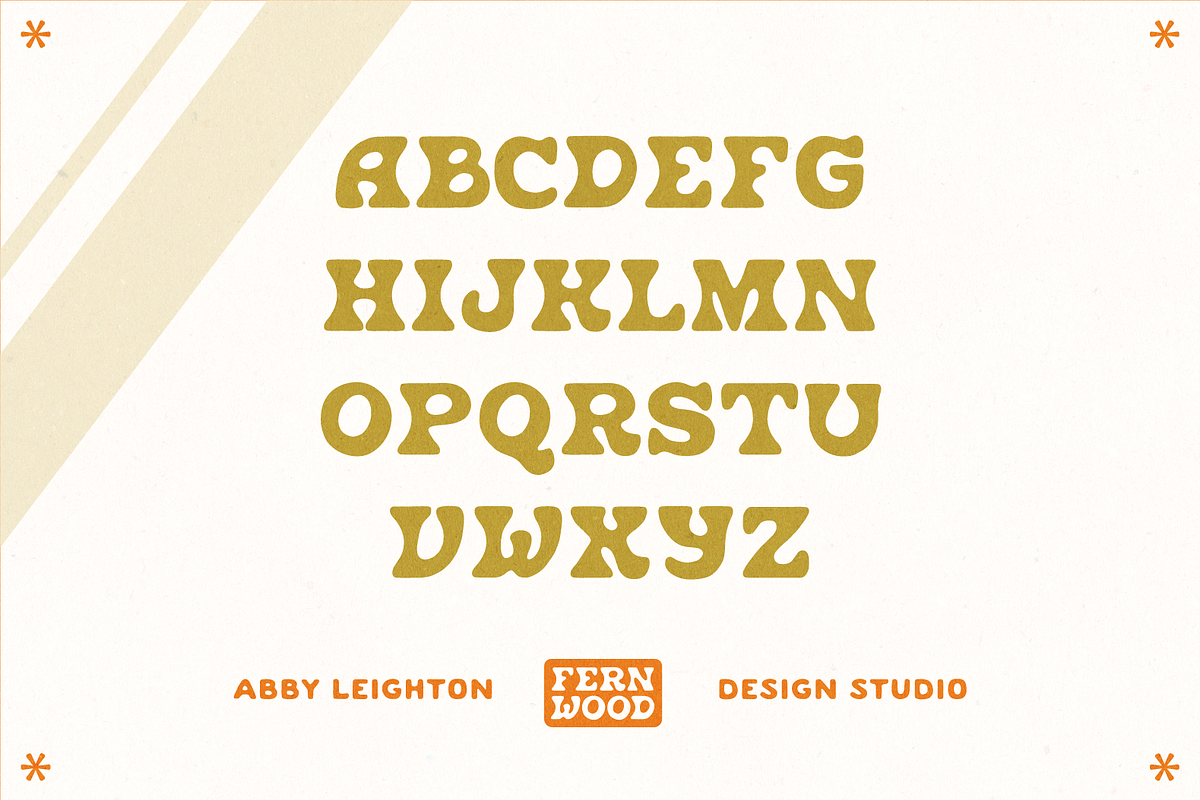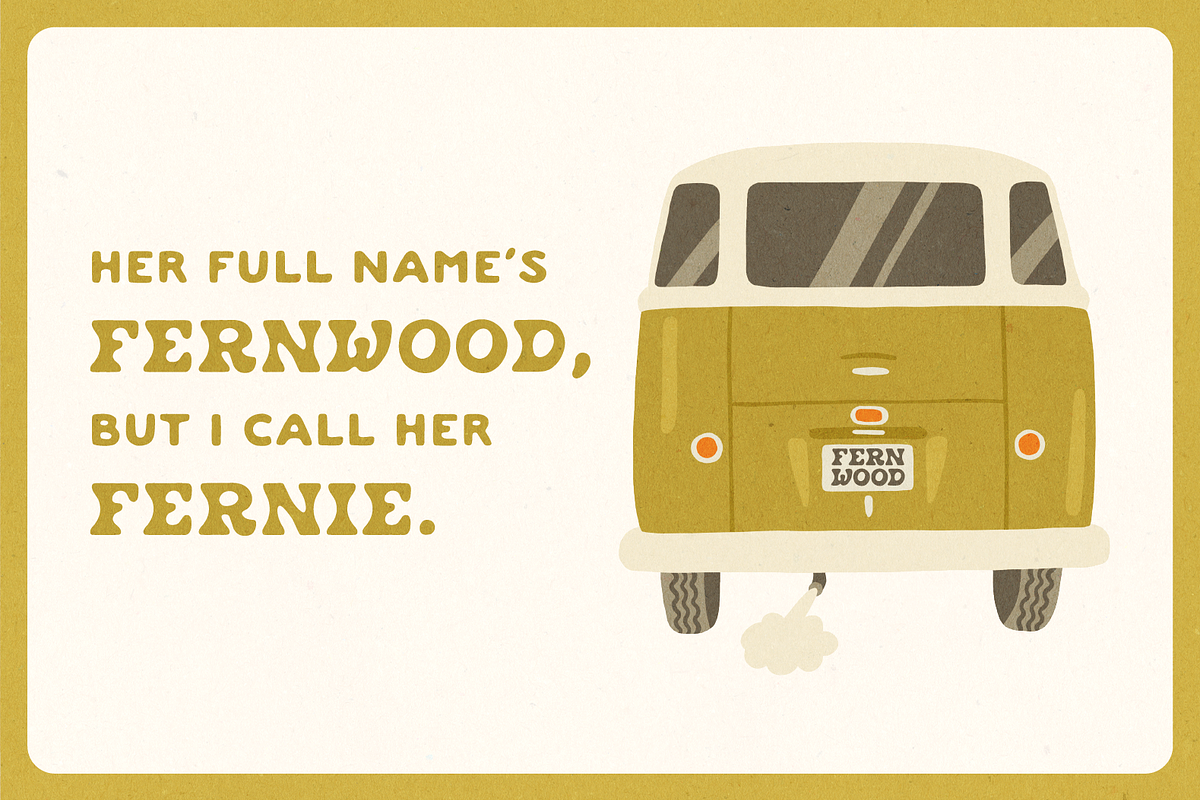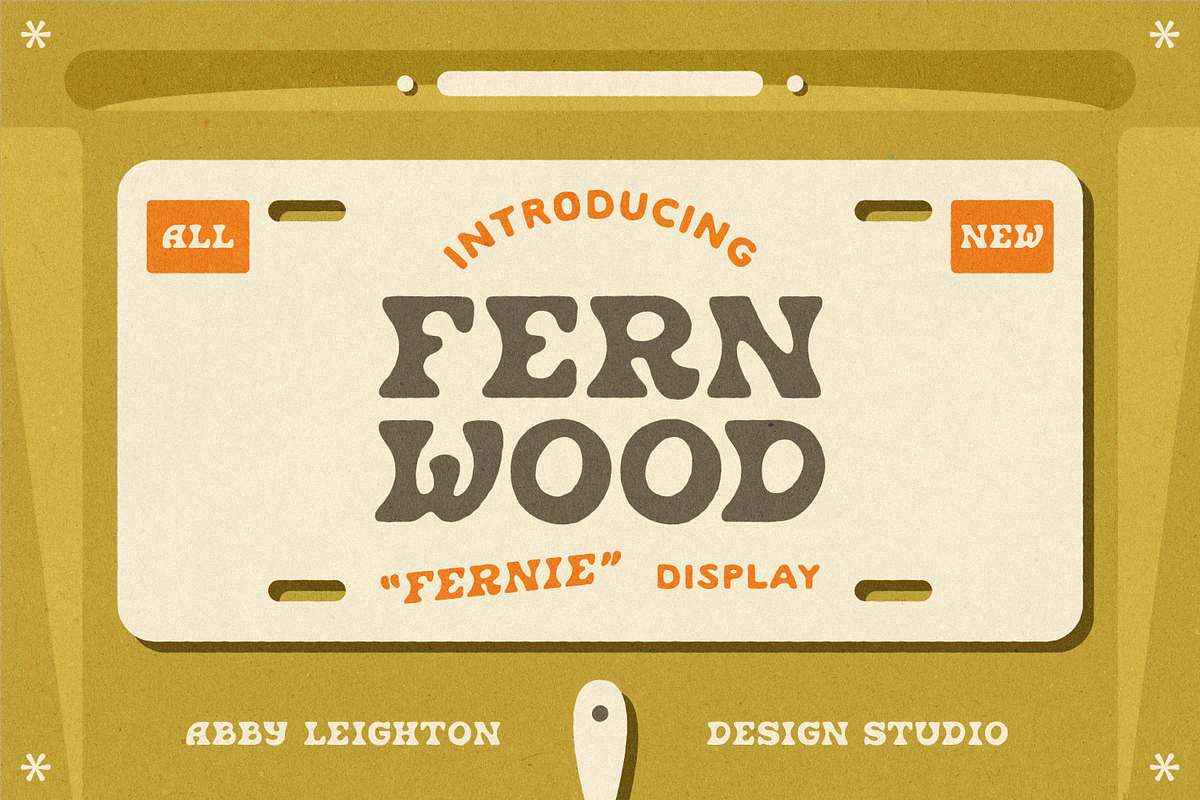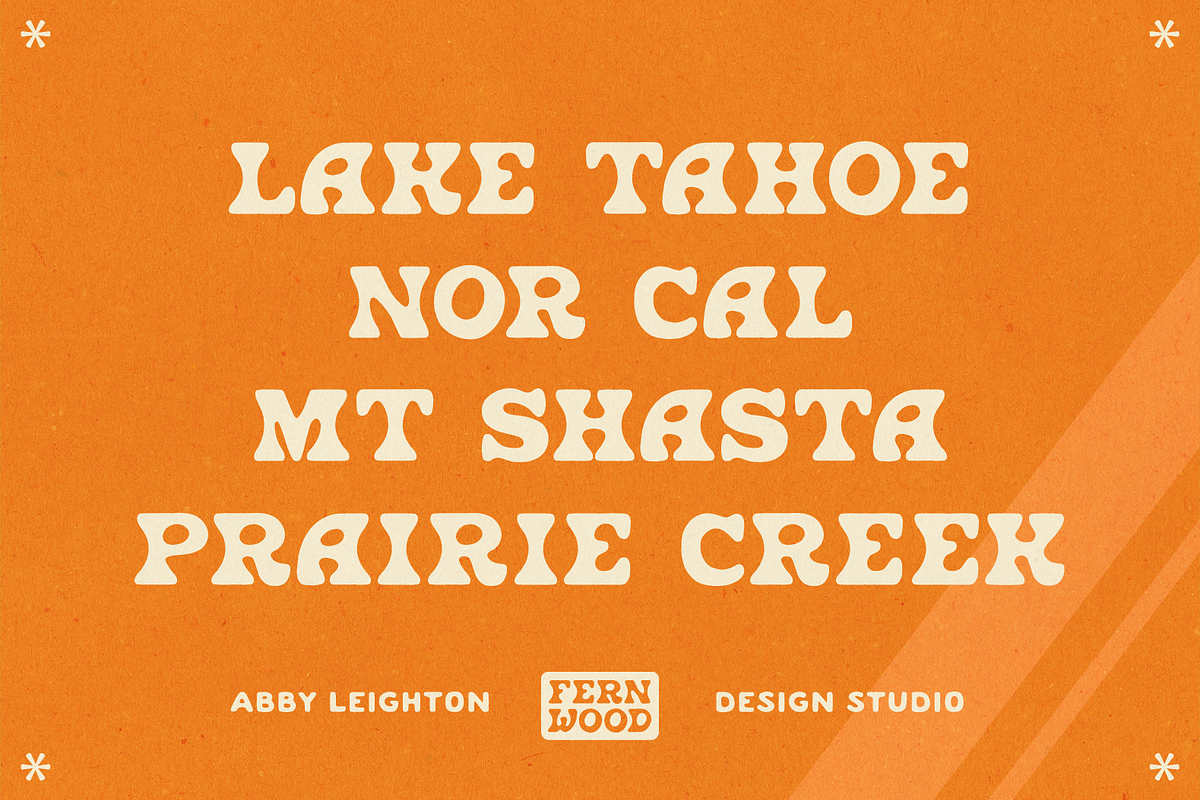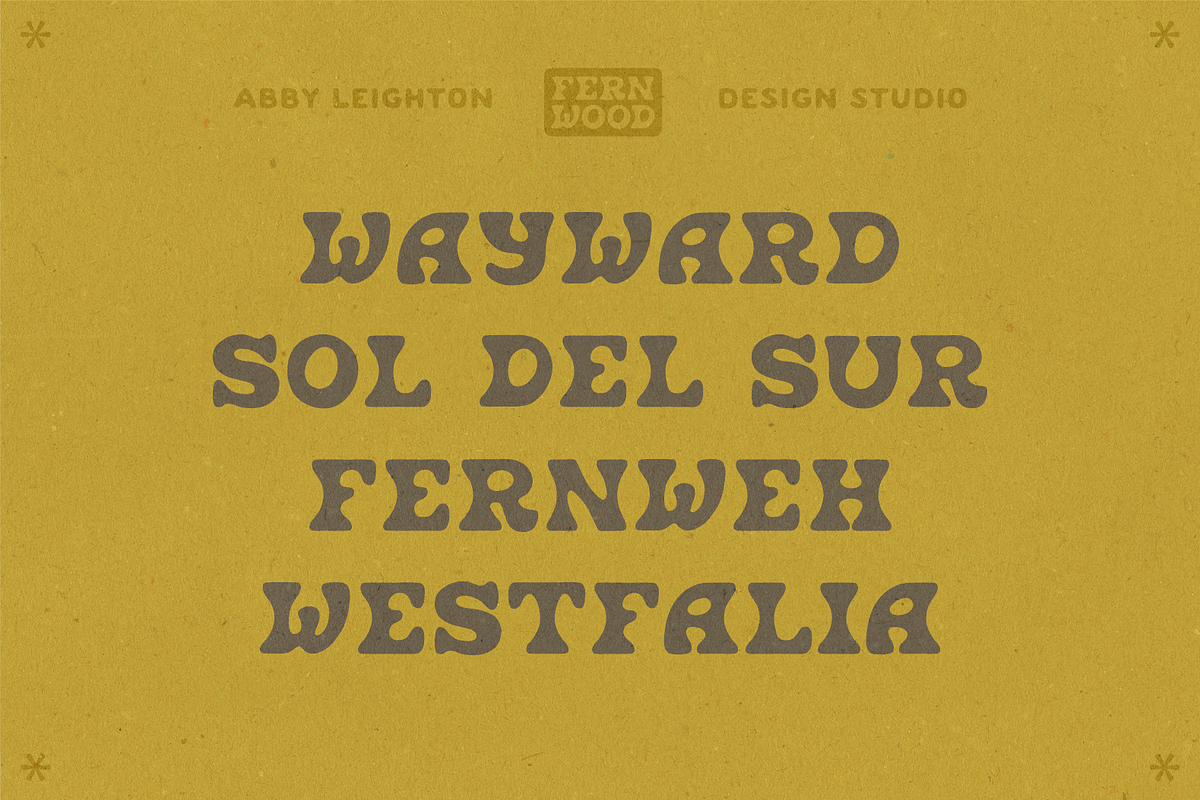
FERNWOOD "FERNIE" DISPLAY
Fernwood "Fernie" Display is an art nouveau and 70s-inspired typeface. Retro, hand-drawn, and playful, it's perfect for that hand-lettered touch in your project.